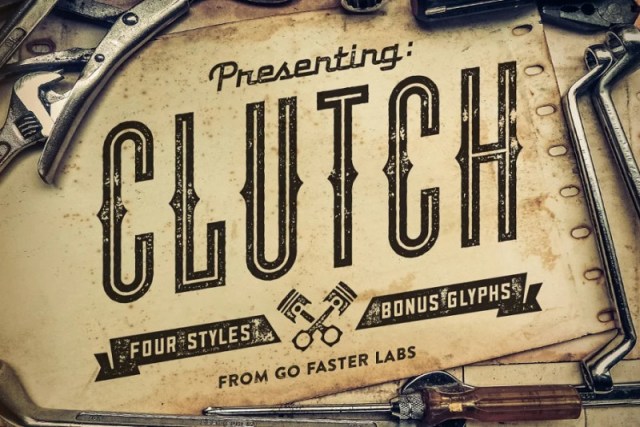
Clutch Font Family Bonus Icons
Clutch Font is perfect for automotive branding, sports team logos, bold headlines, action-packed posters, competitive gaming graphics, athletic apparel designs, powerful advertising campaigns, motorsport marketing, urban streetwear labels, high-performance product packaging, energetic web banners, and any design project requiring a decisive and impactful typographic presence.
What makes Clutch Font exciting is its commanding presence that conveys precision and performance under pressure. The font's strong letterforms capture the essence of critical moments and decisive action, making it ideal for brands emphasizing reliability, performance, and excellence. Its powerful character resonates with audiences who value determination and winning attitudes, while its bold styling ensures maximum visibility and memorability across all applications.
The Clutch Font family typically includes uppercase and lowercase letters, numerals, punctuation marks, and varying weights that provide versatility for different design intensities.